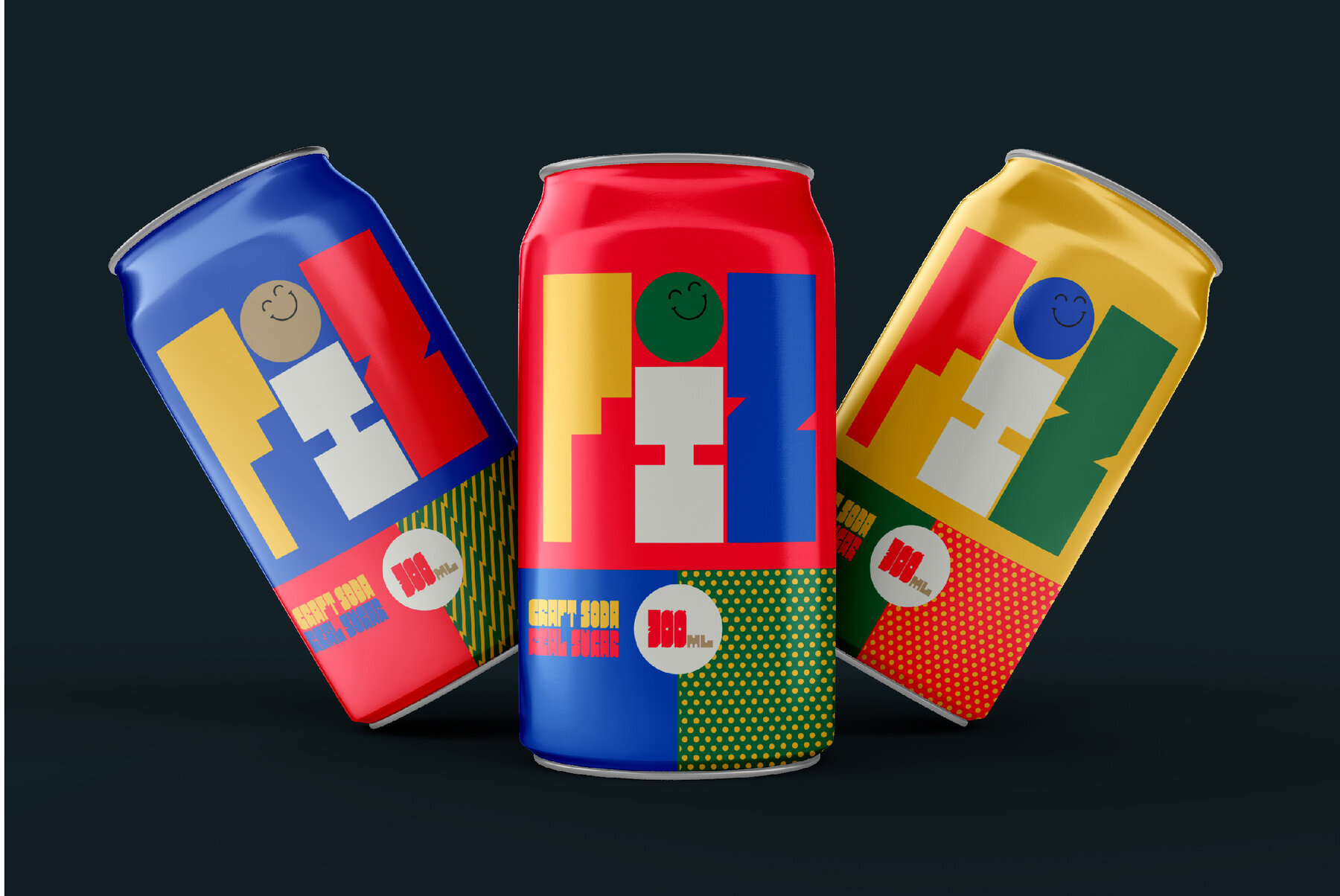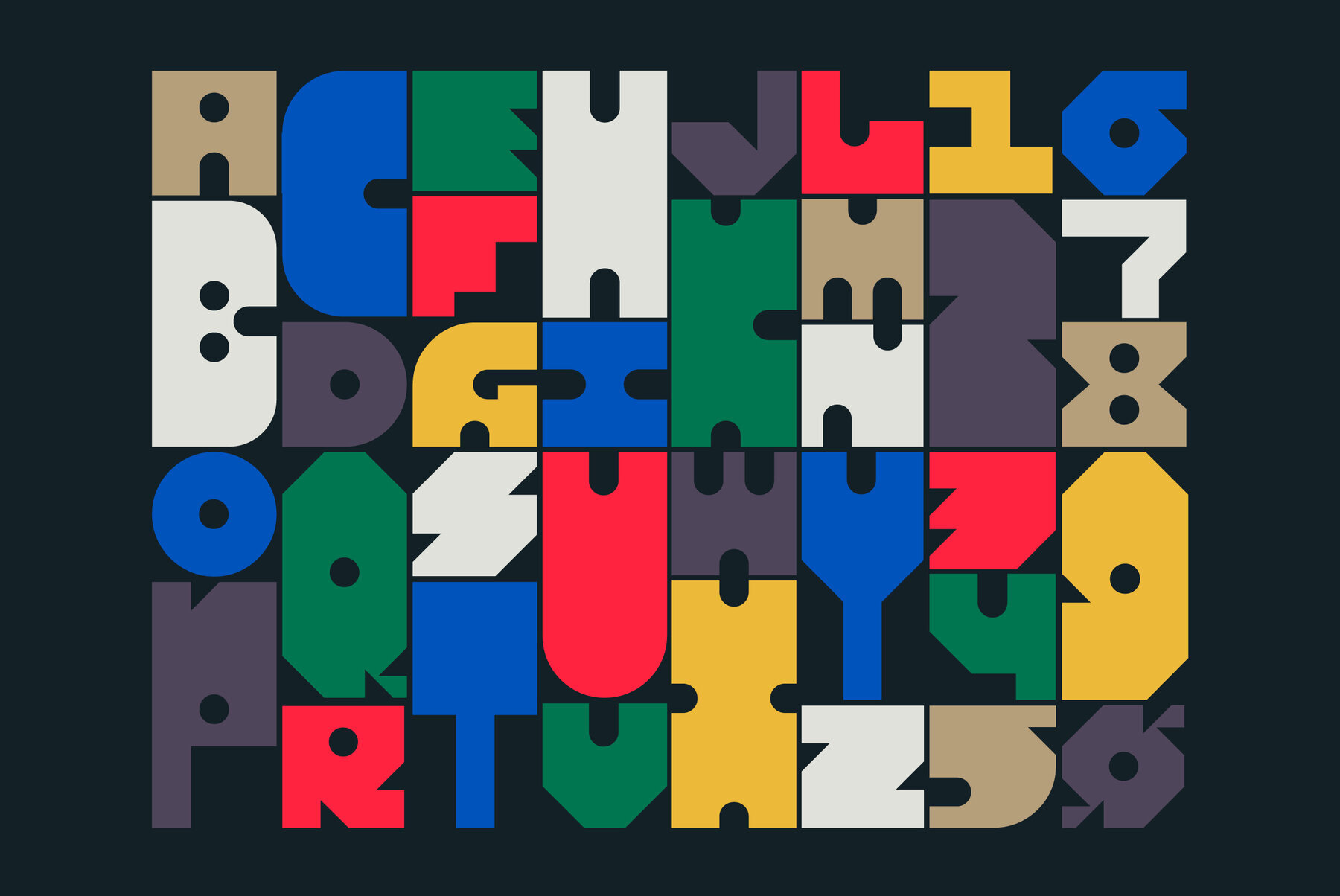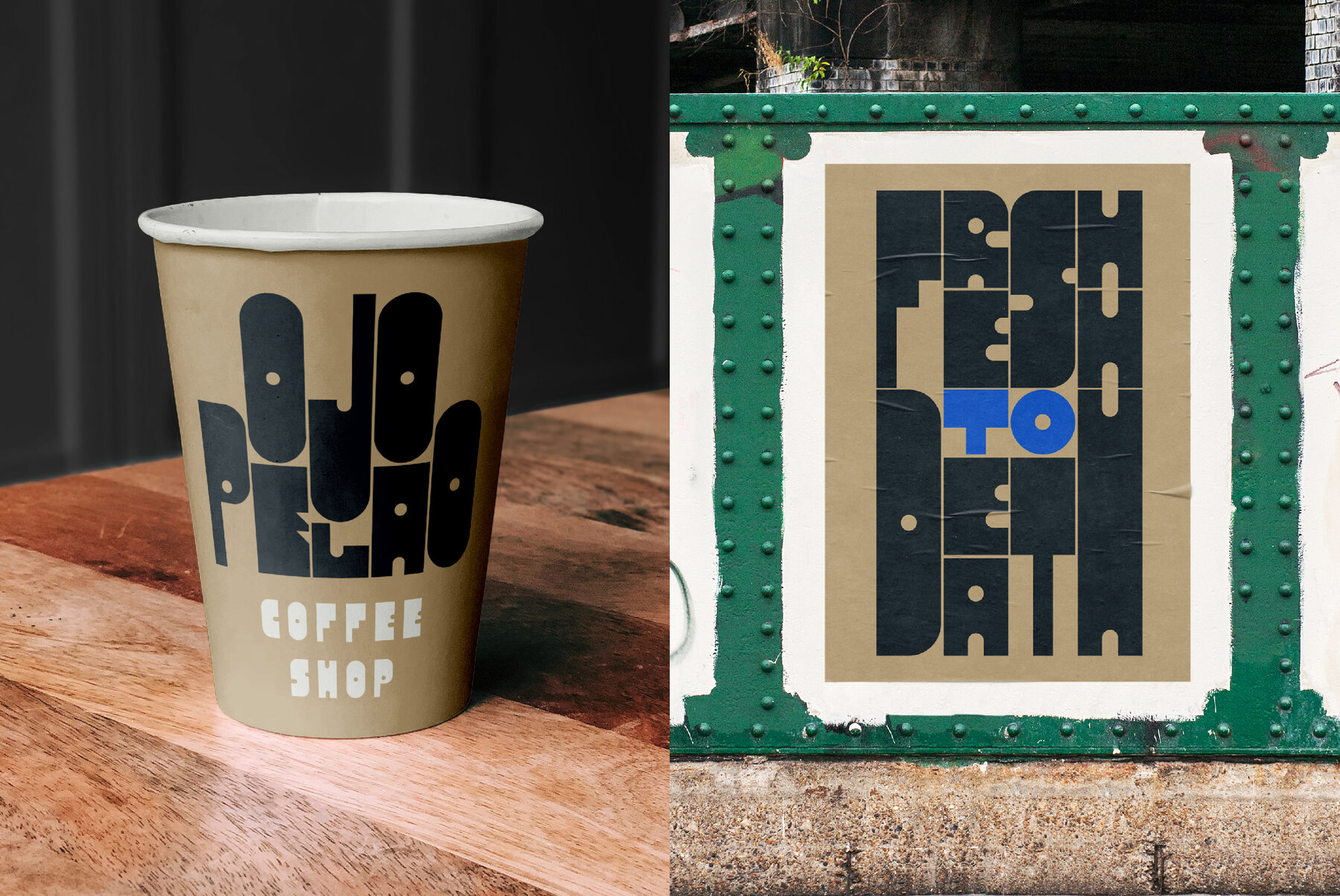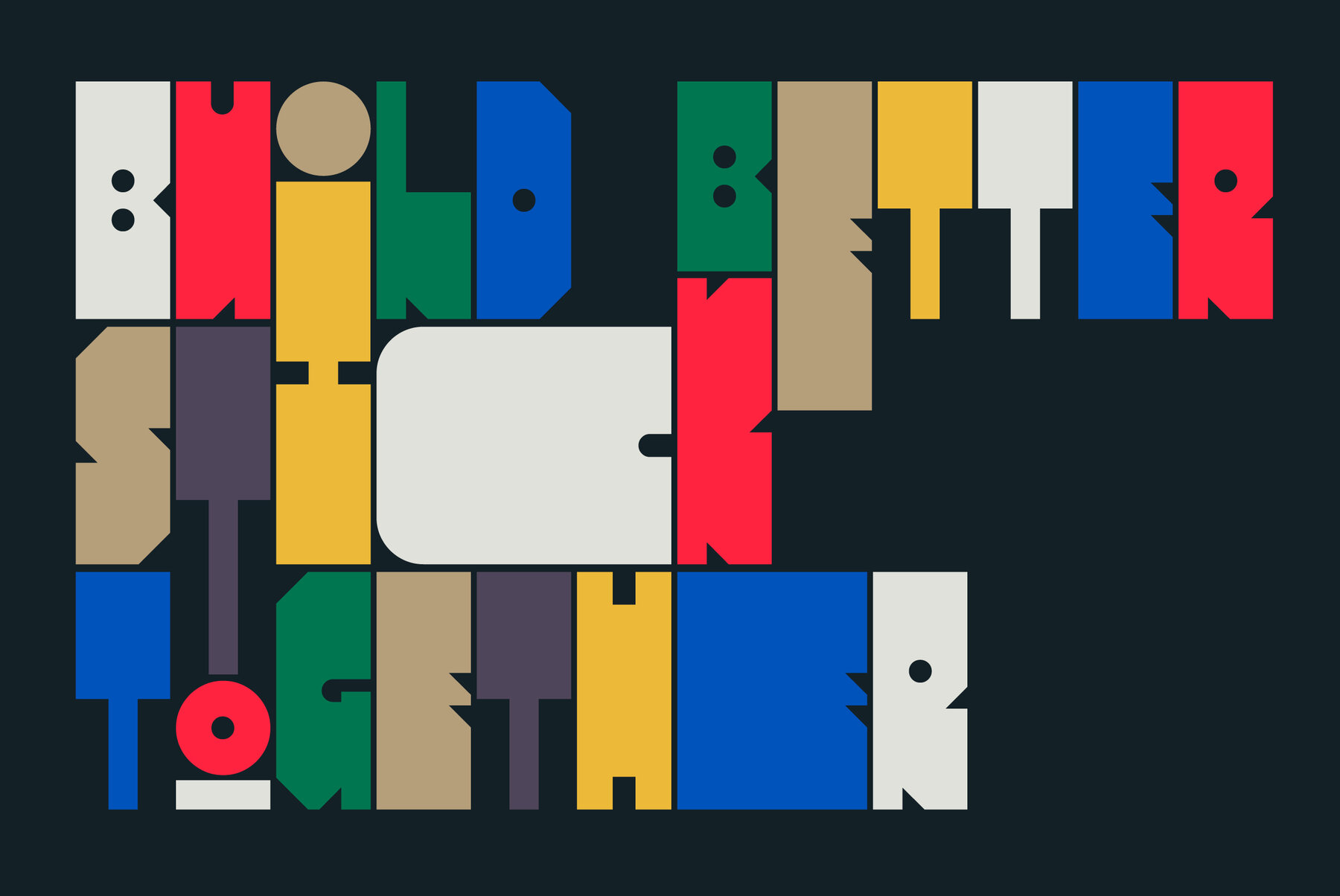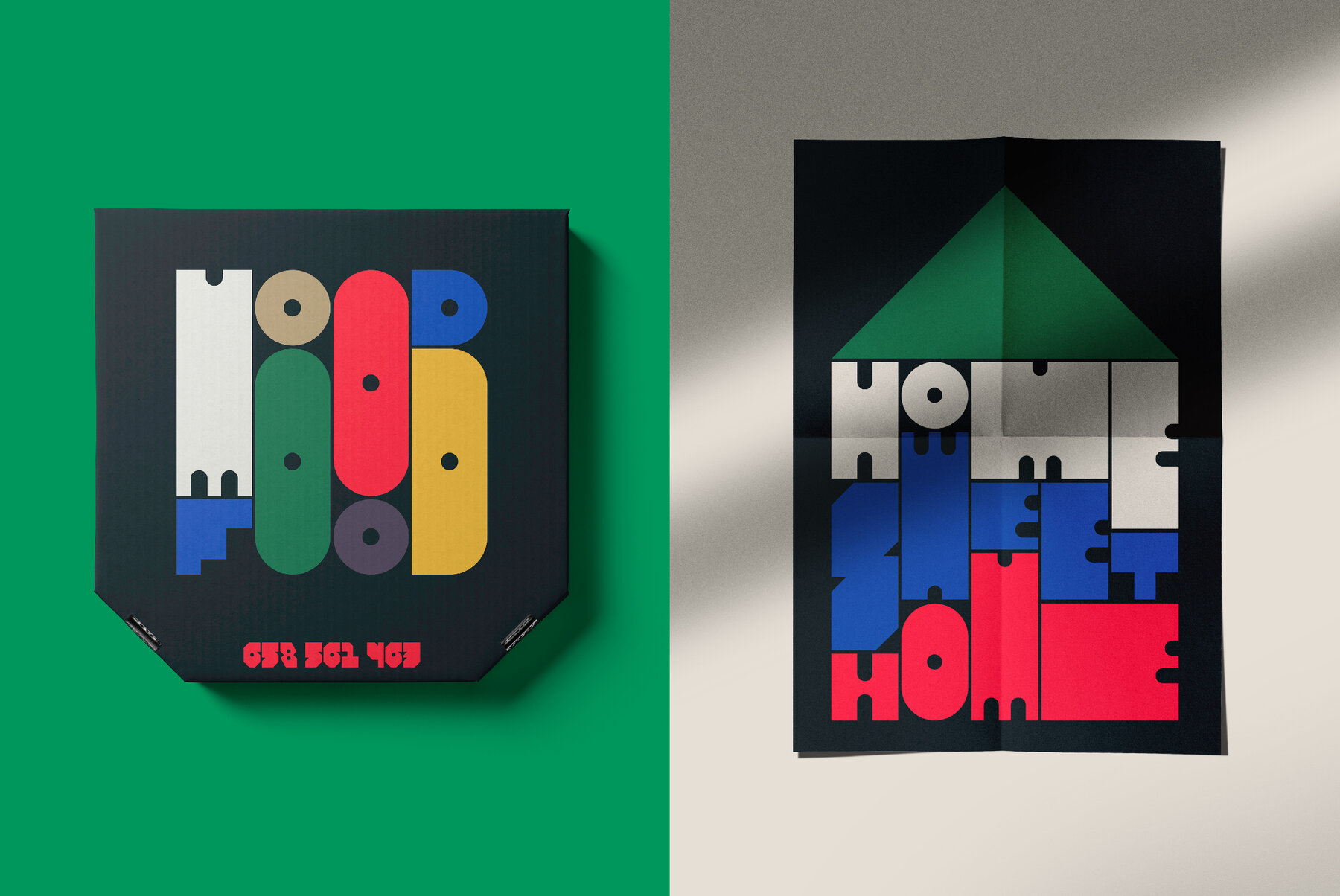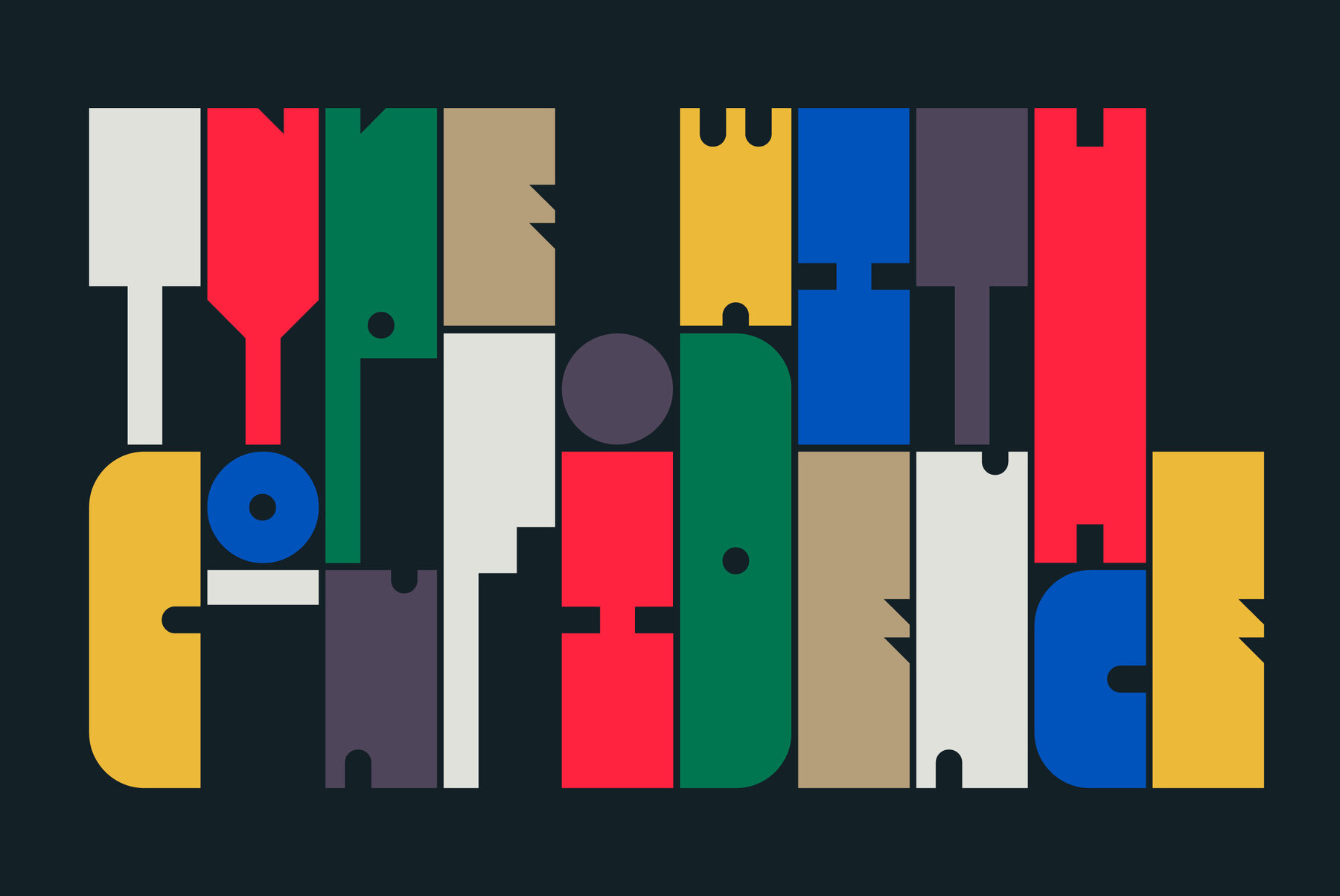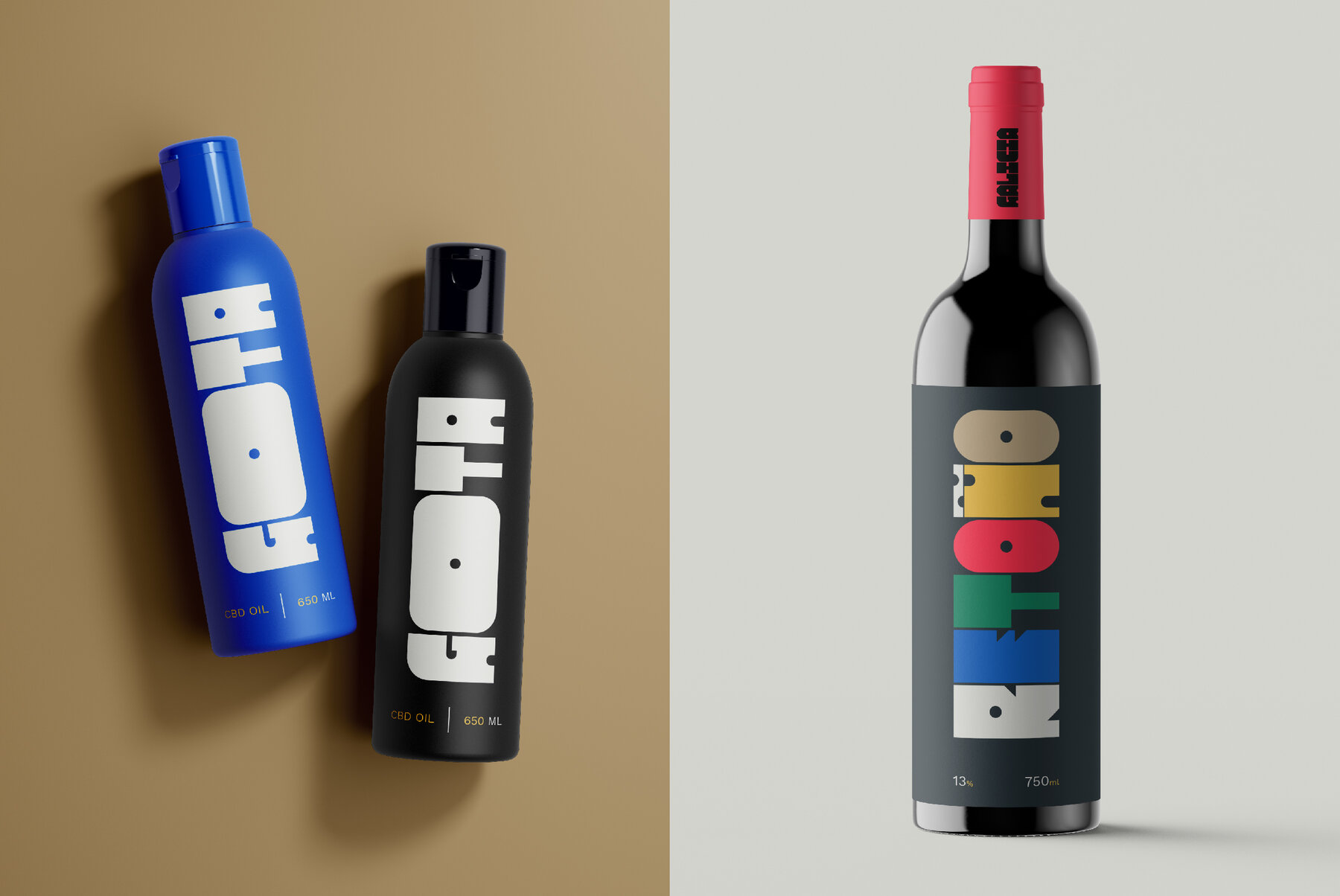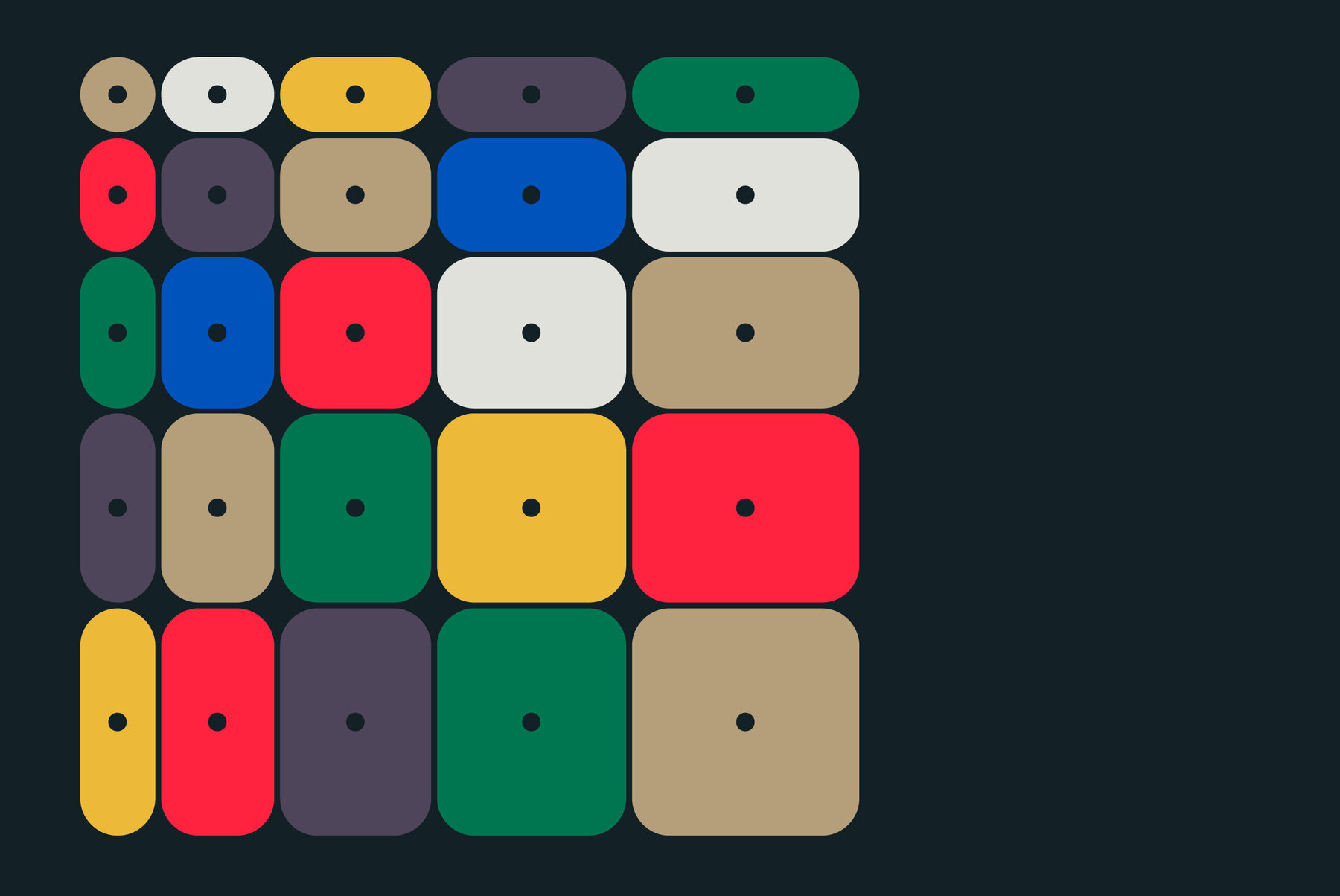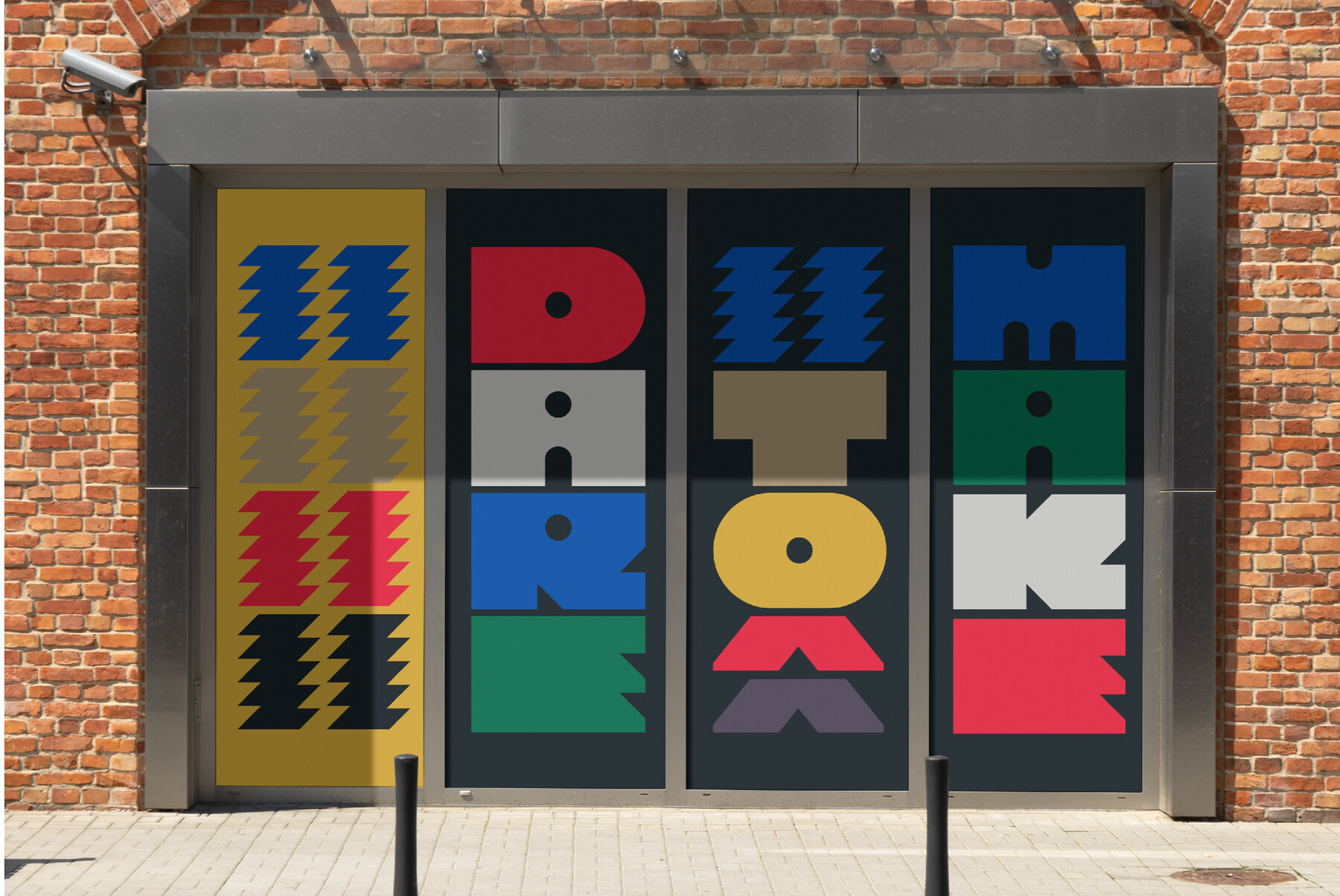
Perfora Font
Perfora is the typographic antidote to our relentlessly anxious and uncertain times. On one hand, Perfora is heavy, monospaced and brick-like. It feels secure, permanent, reliable. On the other, Perfora is extra variable—stretching taller or growing wider as needed—so all your words can fit perfectly together.
And this seeming contradiction is the sweet spot we’ve all been missing: sturdy but not rigid. Named for its punch-hole shaped counters and eyes, Perfora is a flexible powerhouse that’s easy to use, stack, and click into any shape. Use it to assemble everything from dynamic logos to posters and festival lineups, from seamlessly responsive titles to instantly recognizable product lines.
Perfora features two uppercase styles—rounded and angular—punctuation, numbers, latin diacritics, and stylistic alternates for a subset of characters. It also includes 19 ornamental glyphs to compose with flair and add some rhythm to your copy. It’s available (and recommended) as a variable type (.ttf) for designers using compatible platforms. It’s also available in opentype format (.otf) as a set of 25 static fonts, spanning 5 widths and 5 heights.
Perfora was created by In-House International, designed by Alexander Wright and developed by Rodrigo Fuenzalida.